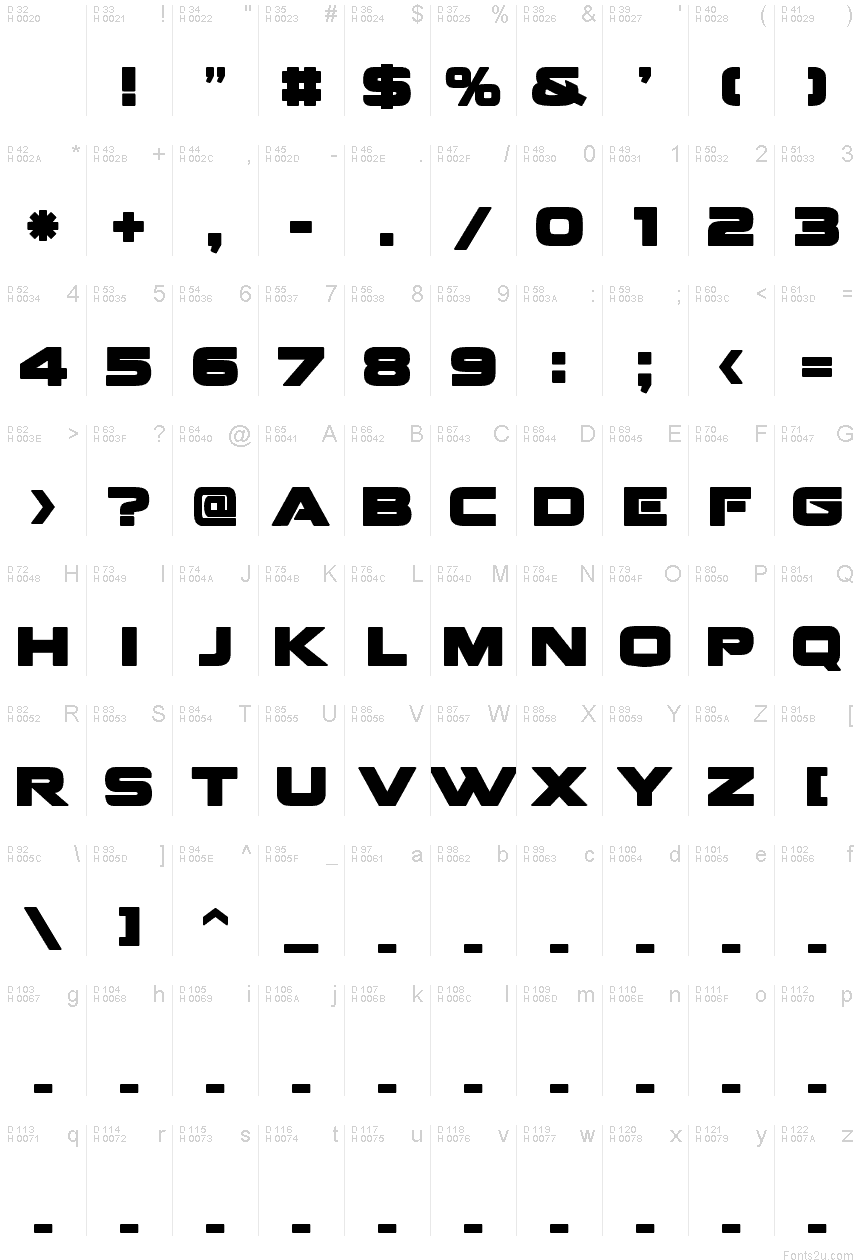
Fenix BlackletterCaps by TracerTong is a free futuristic display font with massive, extended capitals and a hard industrial silhouette. Rounded outer corners soften the dense forms, and sharp triangular cuts, narrow slots, and squared openings give the lettering a custom machine-tooled look.
A gaming studio, streetwear label, or electronics brand could use it to build an aggressive, technology-focused identity. It also suits music posters and title cards. The cutout details can echo interface panels, angular logos, or sci-fi vehicle graphics, letting the type become part of the surrounding artwork itself.
Slight change to the numeral 1.